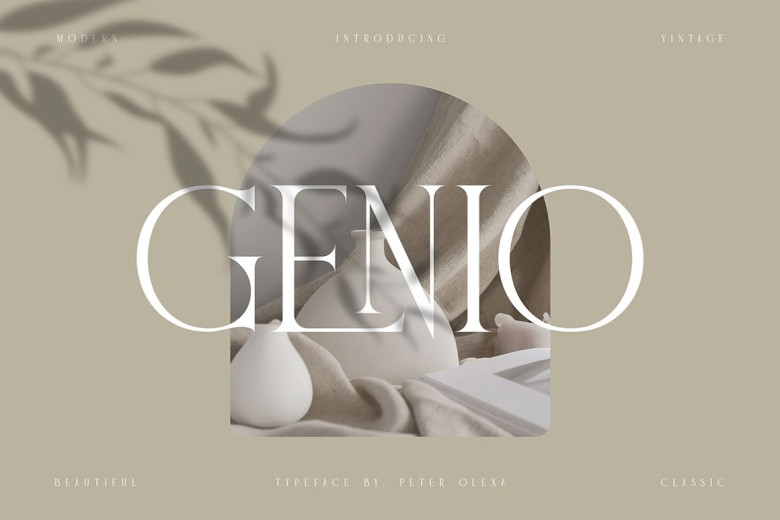
Genio Font
Genio is Trendy, modern, clean, vintage, retro, & classy serif font. You new logo or branding project. The free version provides all uppercase and lowercase letters and a few special characters too.
Genio Modern Serif Font